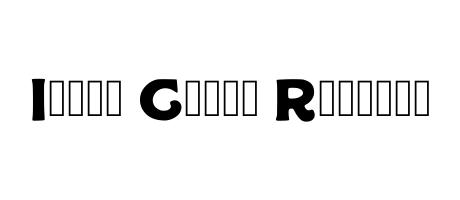
Iqbal Camel
By Ahmed Camel
Iqbal Camel Regular: A bold, playful sans-serif font. Its chunky characters possess a slightly rounded, almost cartoonish quality. The letterforms are solid and distinct, offering excellent readability even at smaller sizes. It evokes a sense of fun and friendliness, suitable for headlines, logos, or playful designs. The overall impression is one of robust simplicity.